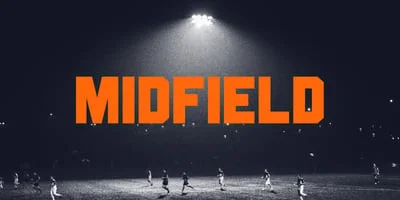
Midfield Font
Midfield Font is perfect for sports team branding, athletic wear logos, football jersey numbers, sports broadcasting graphics, fitness club signage, and competitive gaming tournament designs.
Midfield Font is exciting because it captures the dynamic energy and competitive spirit of professional athletics, delivering a powerful typeface that embodies strength, teamwork, and championship-winning determination.
The Midfield Font family includes athletic variations: Midfield Light, Midfield Regular, Midfield Bold, Midfield Black, condensed versions, and sport-specific number sets for complete athletic branding solutions.
Score big with Midfield Font, a championship-caliber typeface that brings professional sports energy to your most dynamic design projects. This versatile font excels in creating impactful branding for sports bars, athletic equipment manufacturers, college athletics programs, and professional sports franchises that need to communicate power and excellence. The bold, confident letterforms feature strong geometric construction with subtle athletic-inspired details that ensure maximum impact while maintaining crystal-clear readability on jerseys, stadium displays, and digital scoreboards. Perfect for fantasy sports platforms, sports betting applications, fitness motivation graphics, and athletic scholarship programs, this font connects emotionally with sports enthusiasts and competitive athletes. Each character delivers winning performance, making every headline feel like a victory announcement. Midfield Font transforms ordinary sports communications into championship-worthy presentations that inspire teams and energize fans across all athletic disciplines.